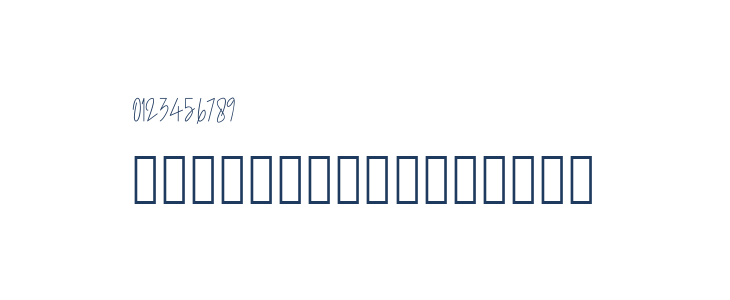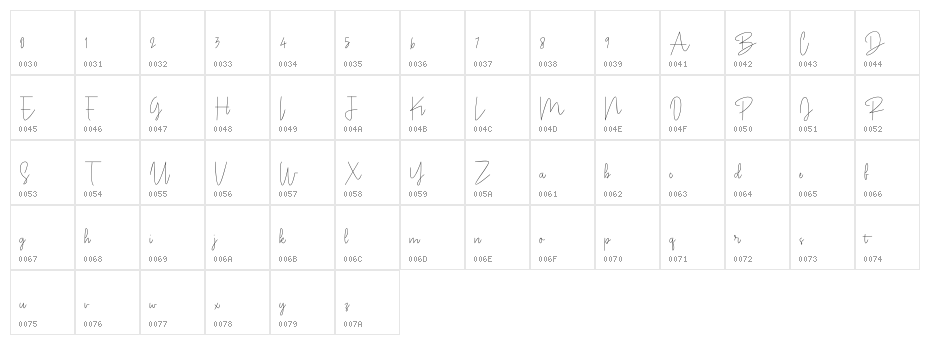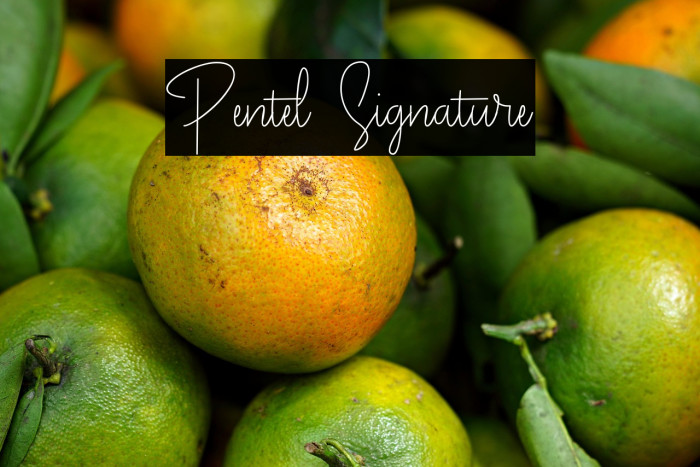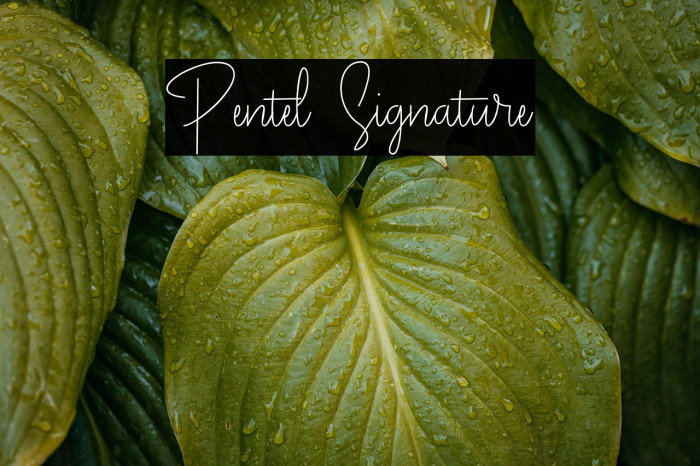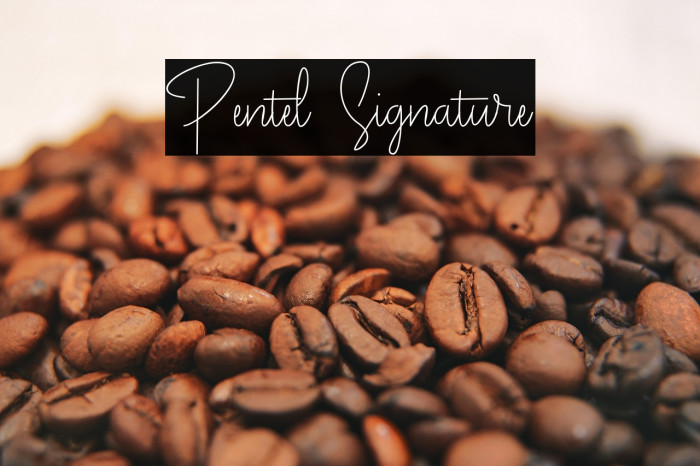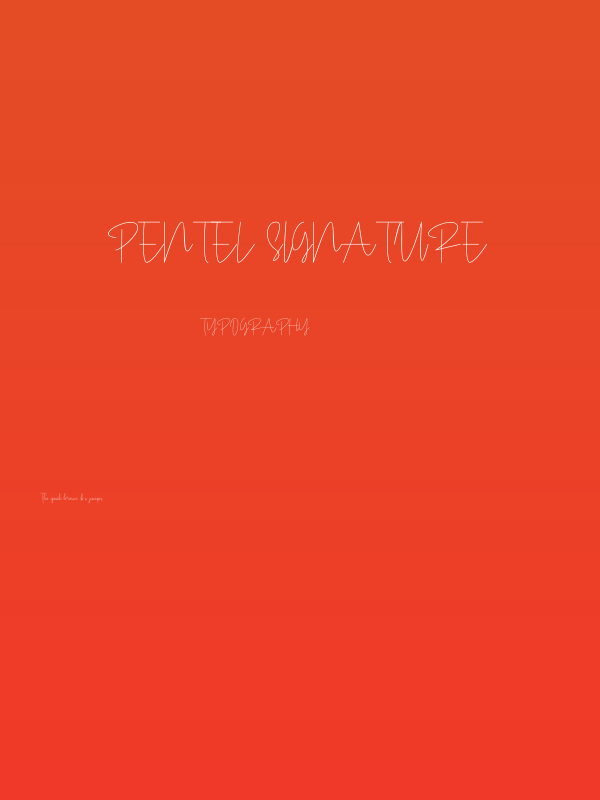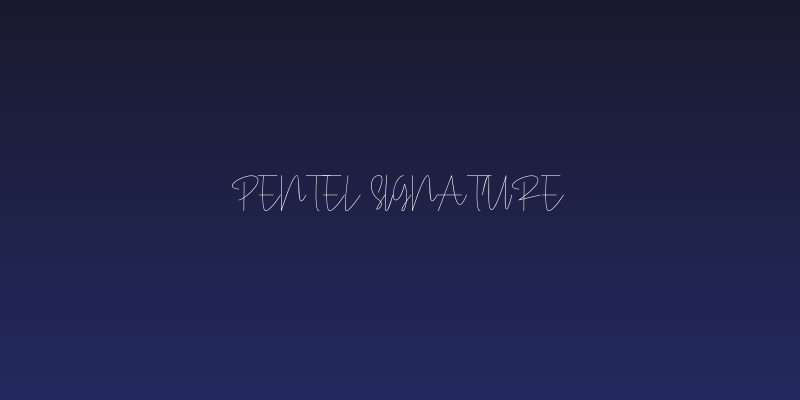
Pentel Signature Font
Pentel Signature Description
This font features a delicate and flowing script style, characterized by its elegant and continuous strokes. The uppercase letters are tall and slightly narrow, with a graceful, handwritten appearance. The lowercase letters maintain a consistent flow, enhancing the cursive aesthetic. Numbers are clear and legible, matching the overall style with a slight slant. The font exudes a sense of sophistication and personal touch, making it ideal for projects that require a humanistic and artistic feel.
A delicate, flowing script font with elegant, continuous strokes from Uncategorized fonts.
- Proposed Projects: Ideal for wedding invitations, personal branding, greeting cards, and artistic projects.
- Overall Style: Elegant, Artistic
- Use Case: Logos, Invitations, Personal Branding